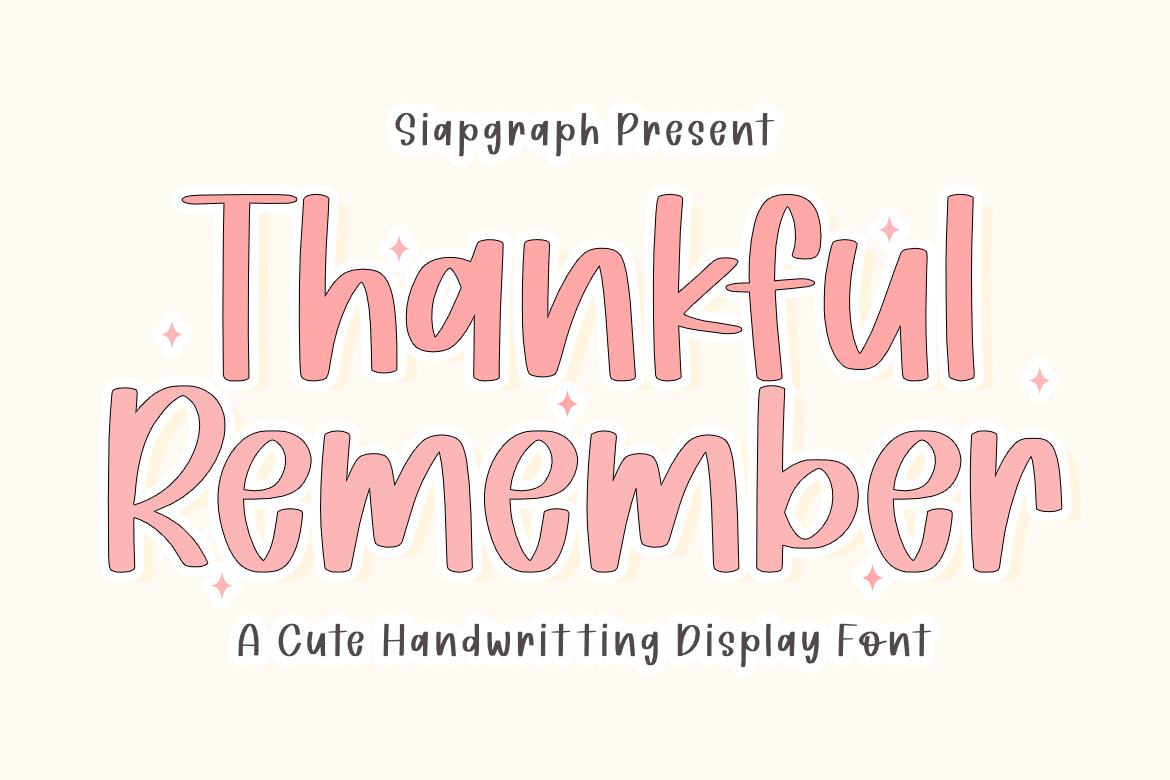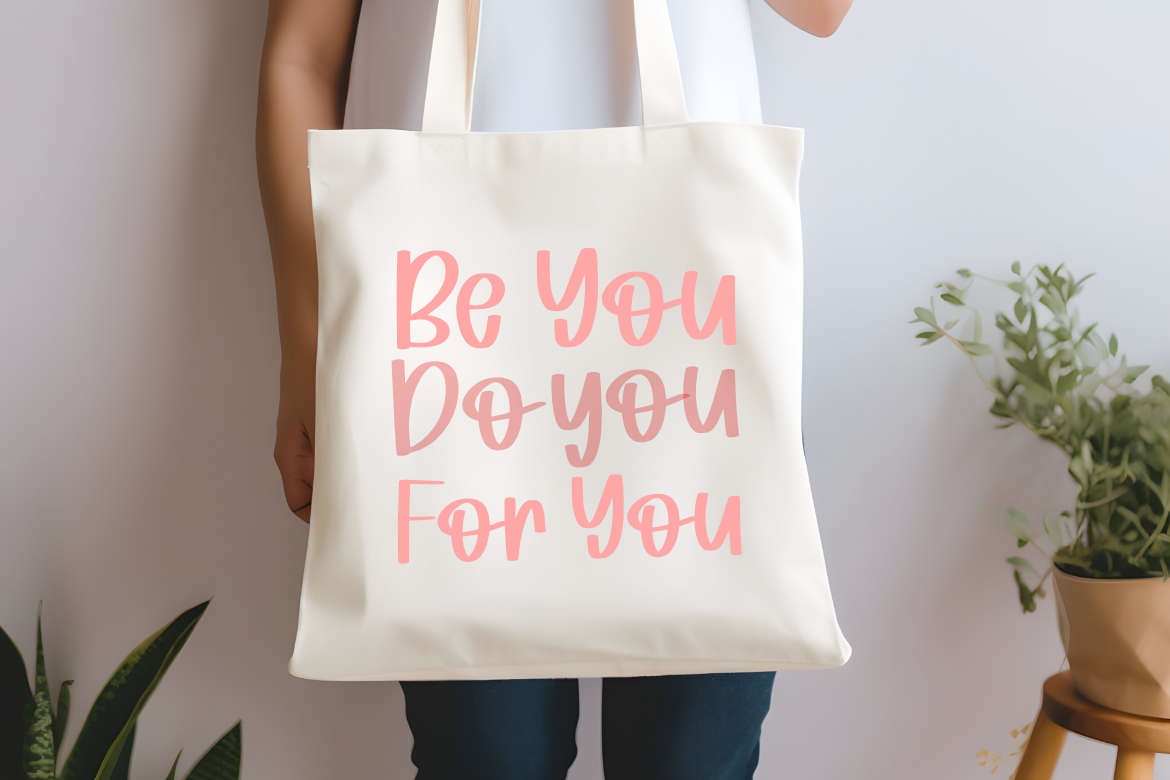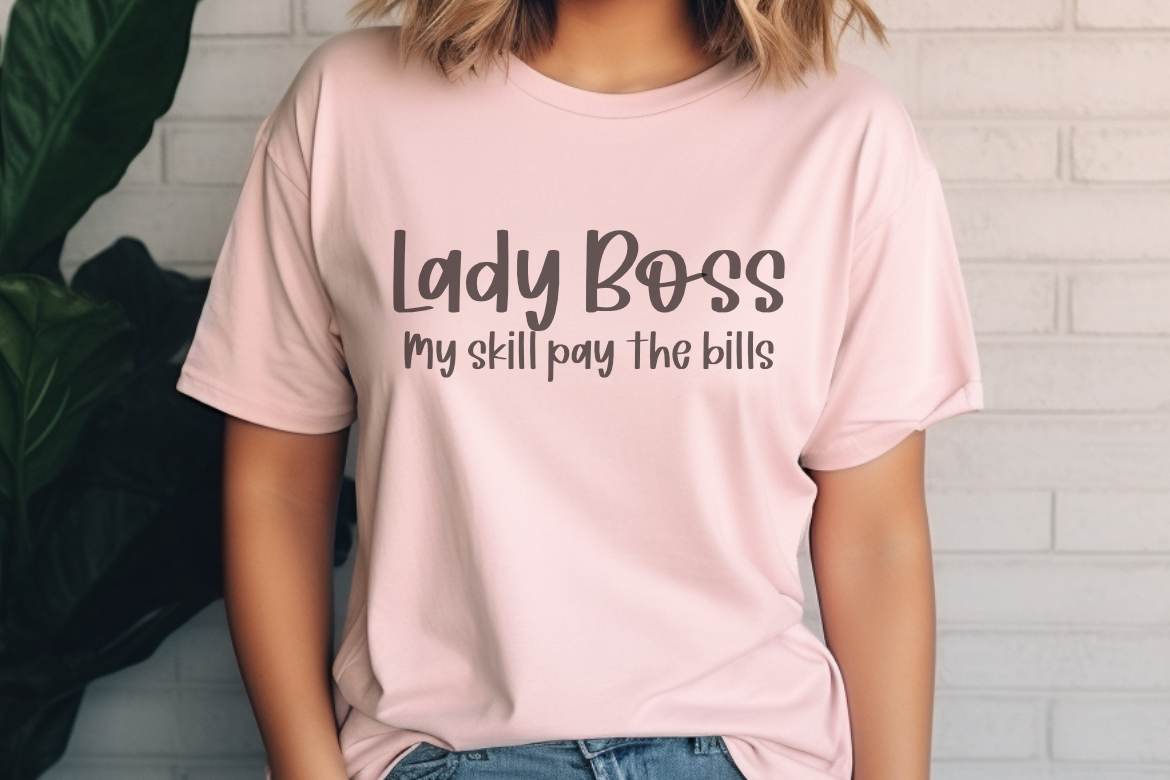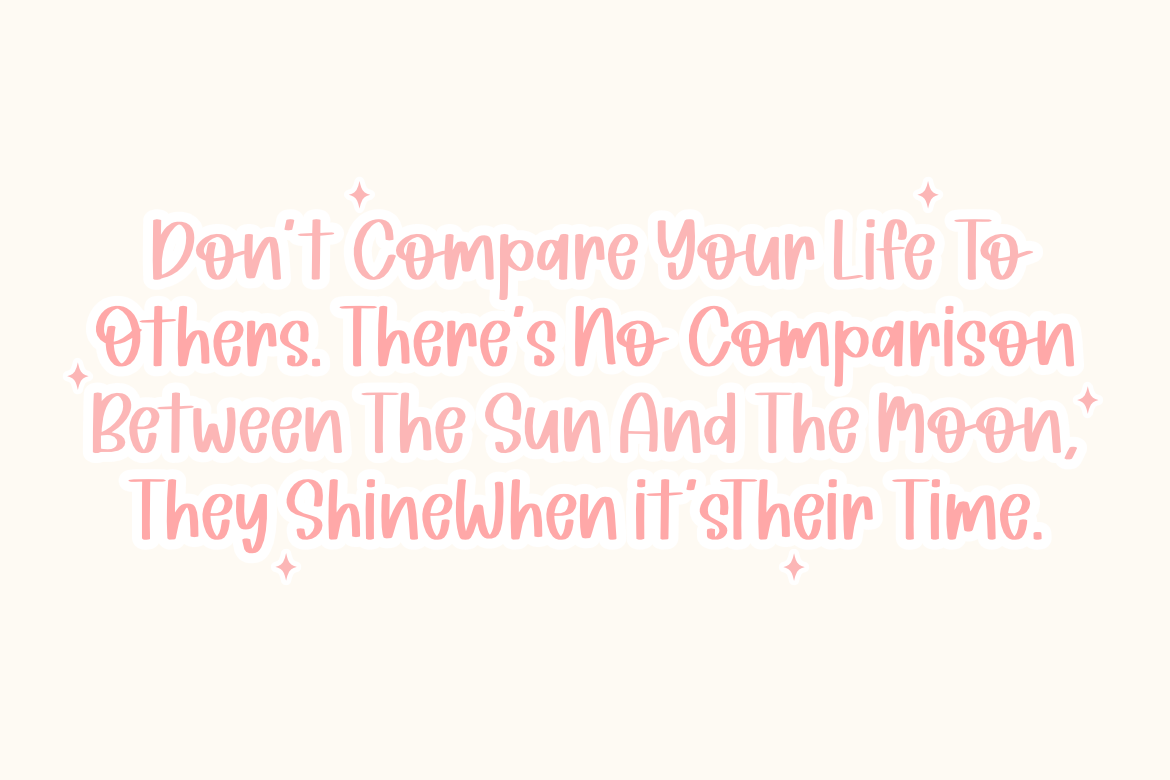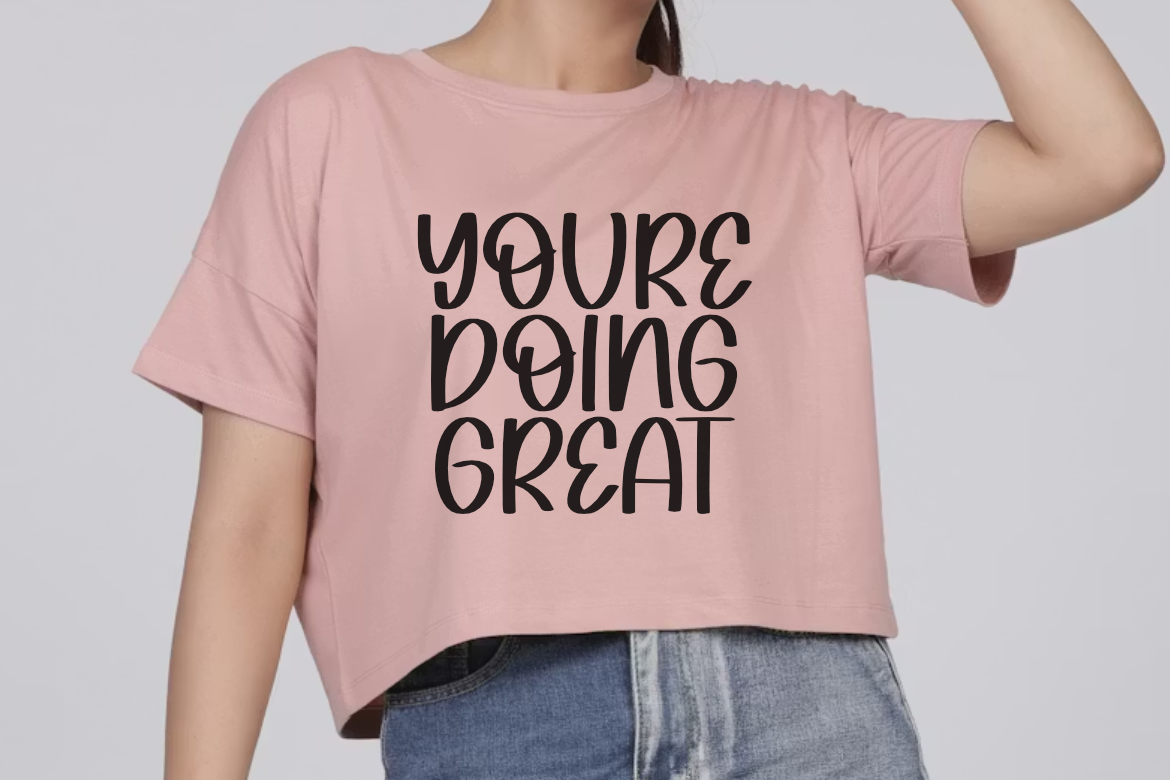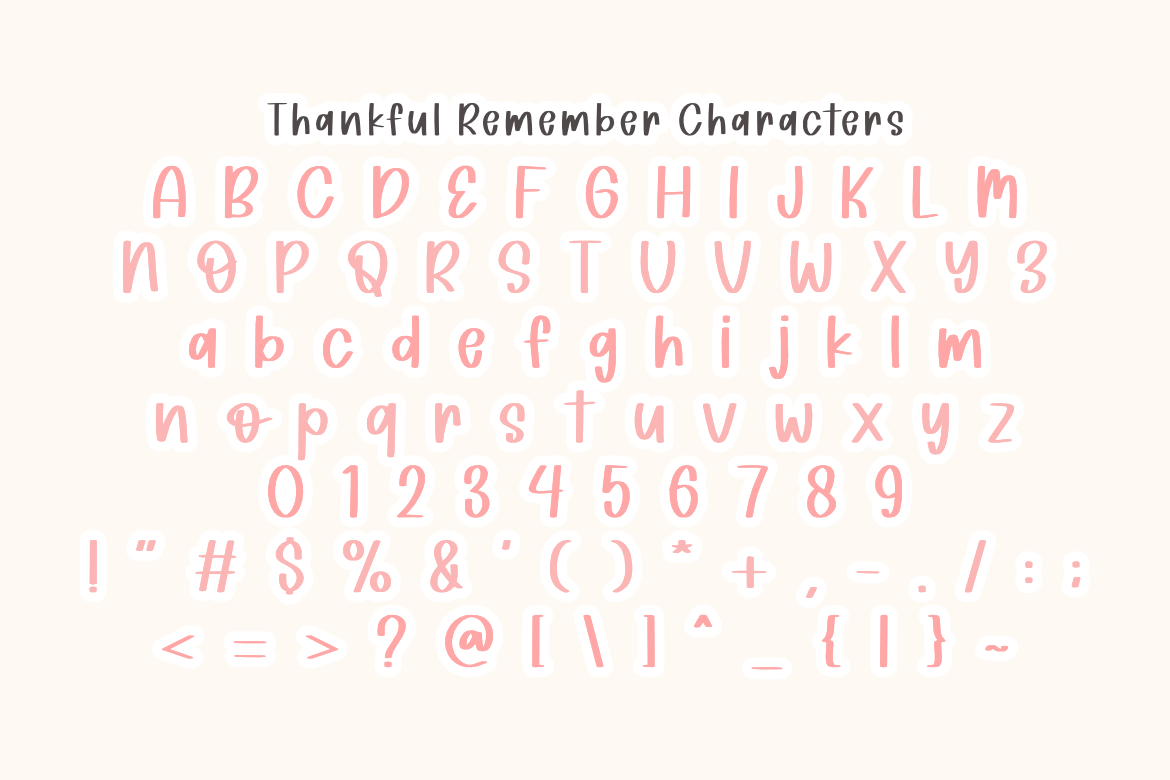
Thankful Remember - Cute Handwriting
Bring your ideas to life with Thankful Remember, a charming and cute handwriting display font that exudes playfulness! Its soft curves and bold appearance are perfect for creating eye-catching headlines, posters, social media graphics, and branding. Add a dreamy touch to your designs with this delightful font that’s both fun and versatile.